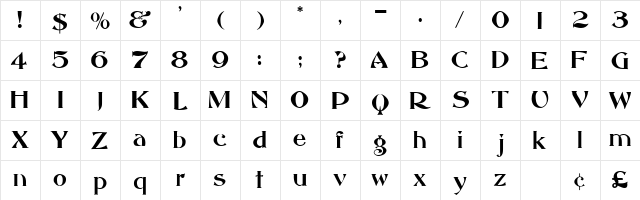
Mandrita Display SSi Regular
Design Context for Mandrita Display SSi Typeface
Mandrita Display SSi brings ornamental detail and strong personality to headlines and identities, where visual impact matters more than quiet functionality.
Font Pairing: Pair with a clean neutral sans-serif for body copy to let Mandrita Display SSi's character lead without overwhelming the composition.
Pro Tip: Treat Mandrita Display SSi as the centrepiece of your typographic hierarchy. One strong heading set in a decorative face can carry an entire layout.